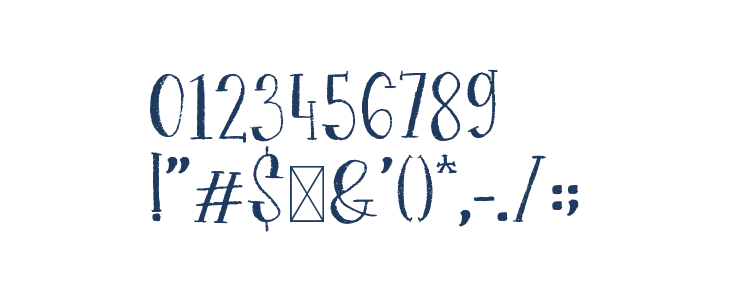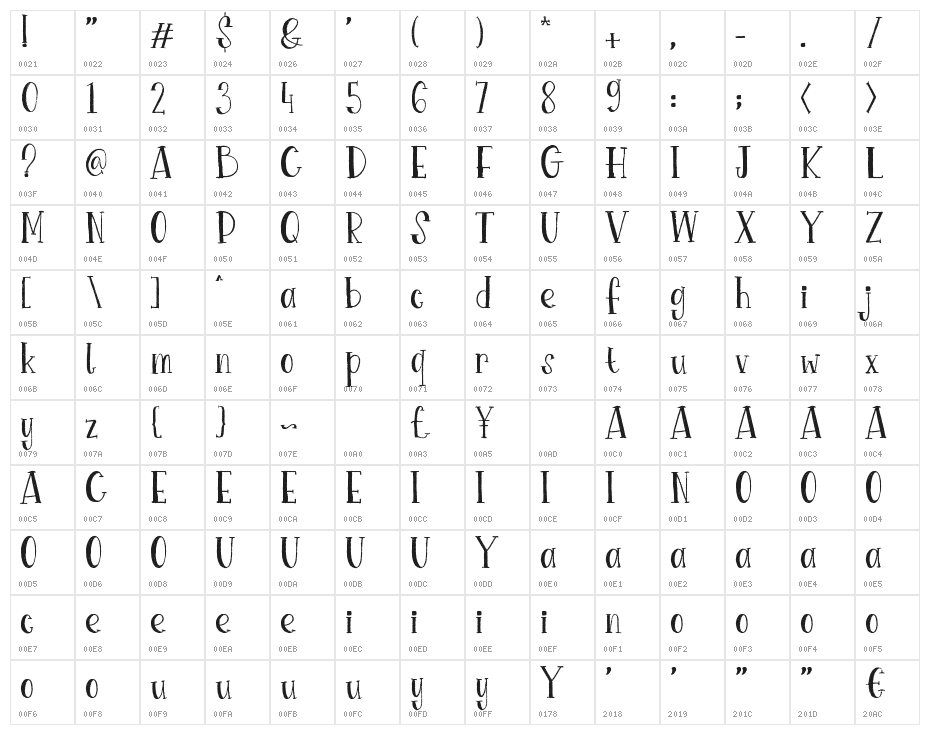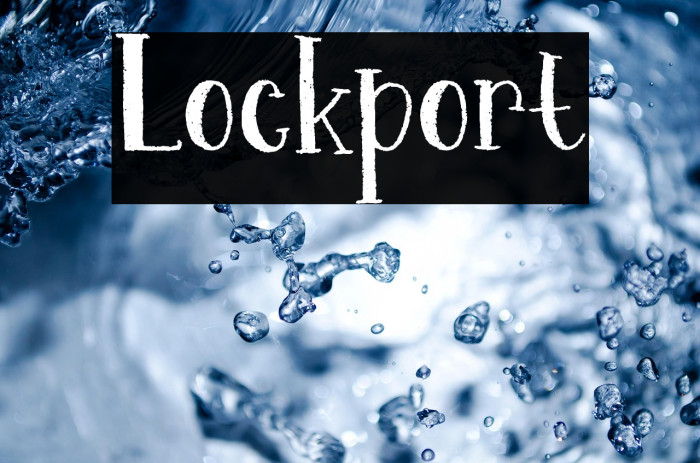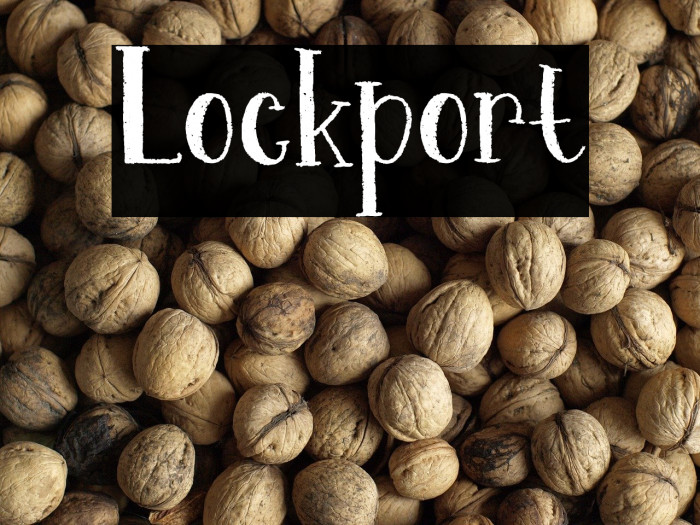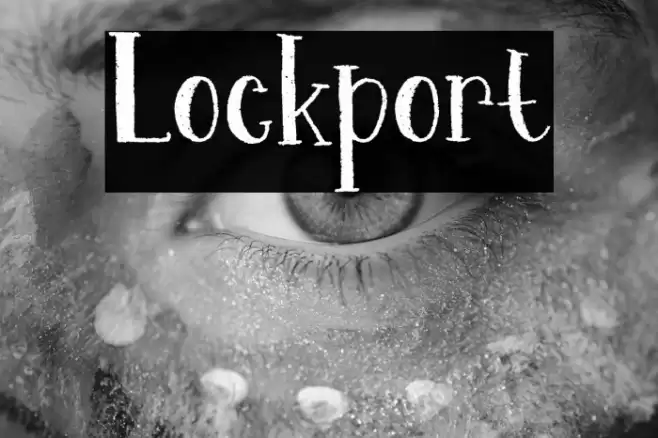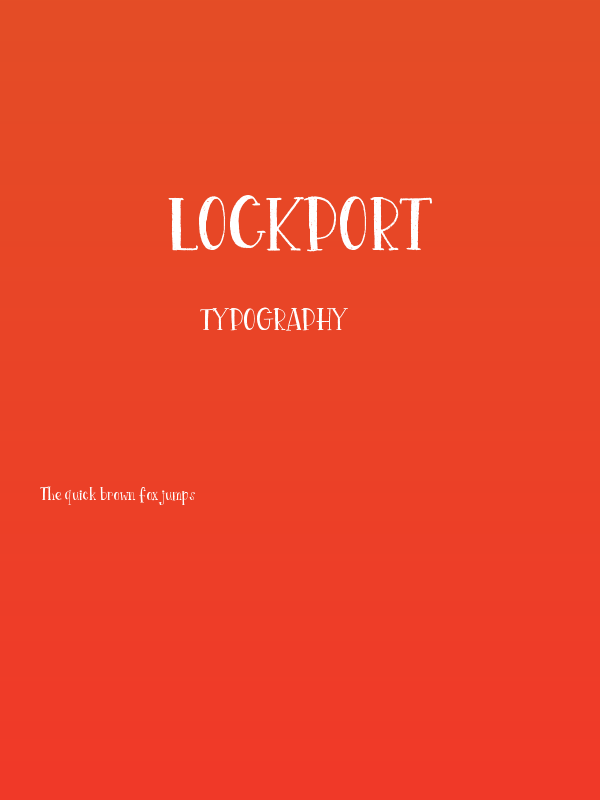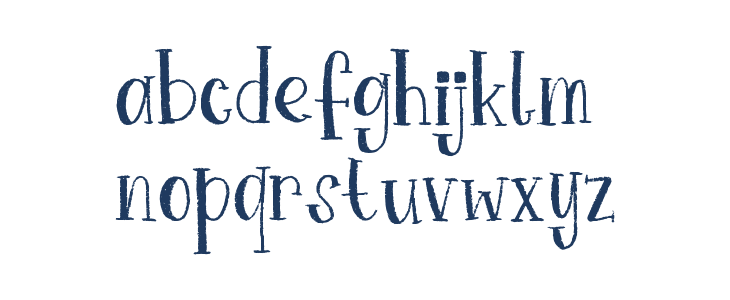
Lockport Font
Lockport Description
This font features a playful and artistic style, characterized by its hand-drawn appearance. The letters have a slightly uneven baseline, giving them a whimsical and informal feel. The strokes vary in thickness, adding a dynamic and textured look. The uppercase letters are bold and prominent, while the lowercase letters maintain a consistent style with unique flourishes. Numbers and special characters are designed to match the overall aesthetic, making this font suitable for creative and expressive projects.
| Proposed Projects | Ideal for children's books, greeting cards, posters, and creative branding. |